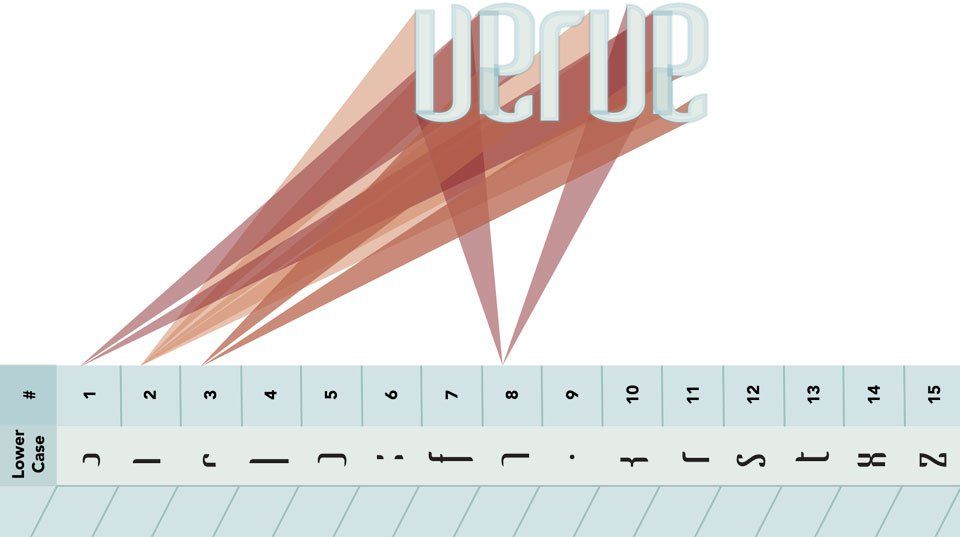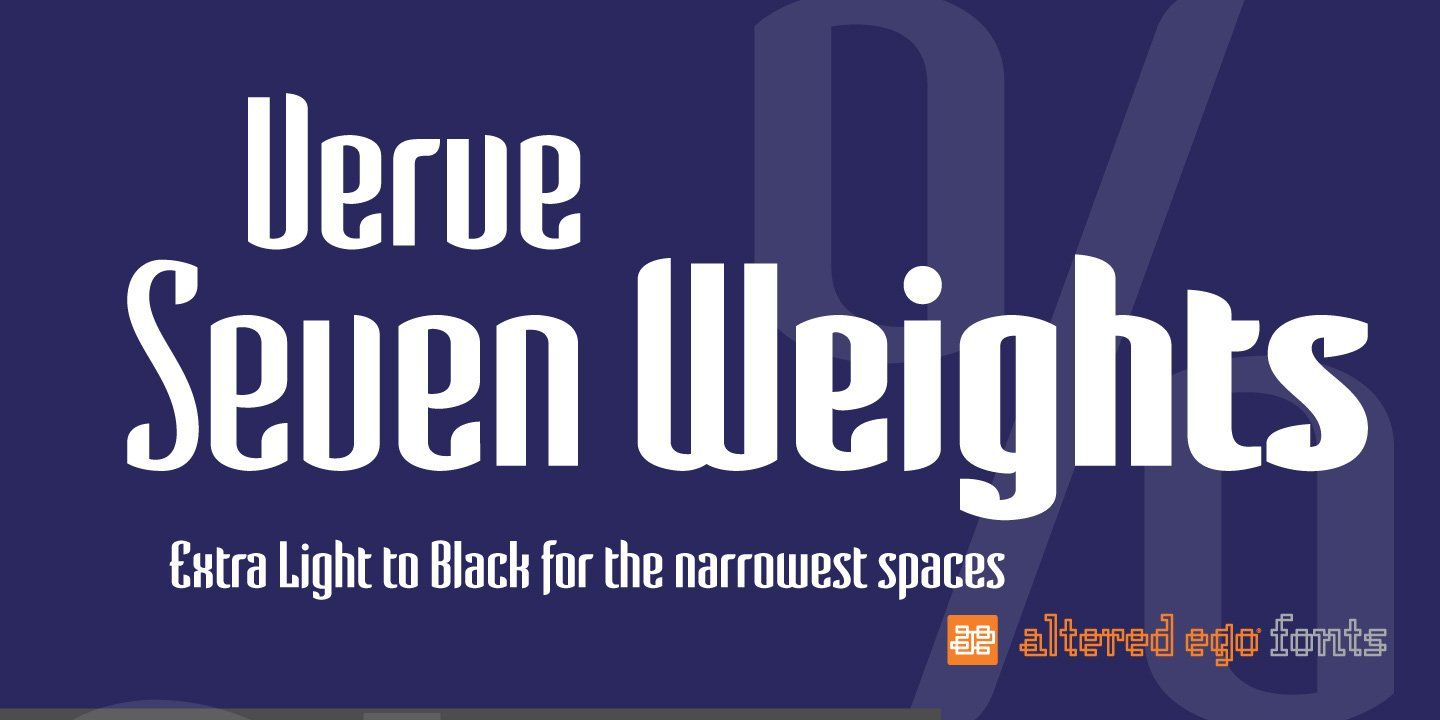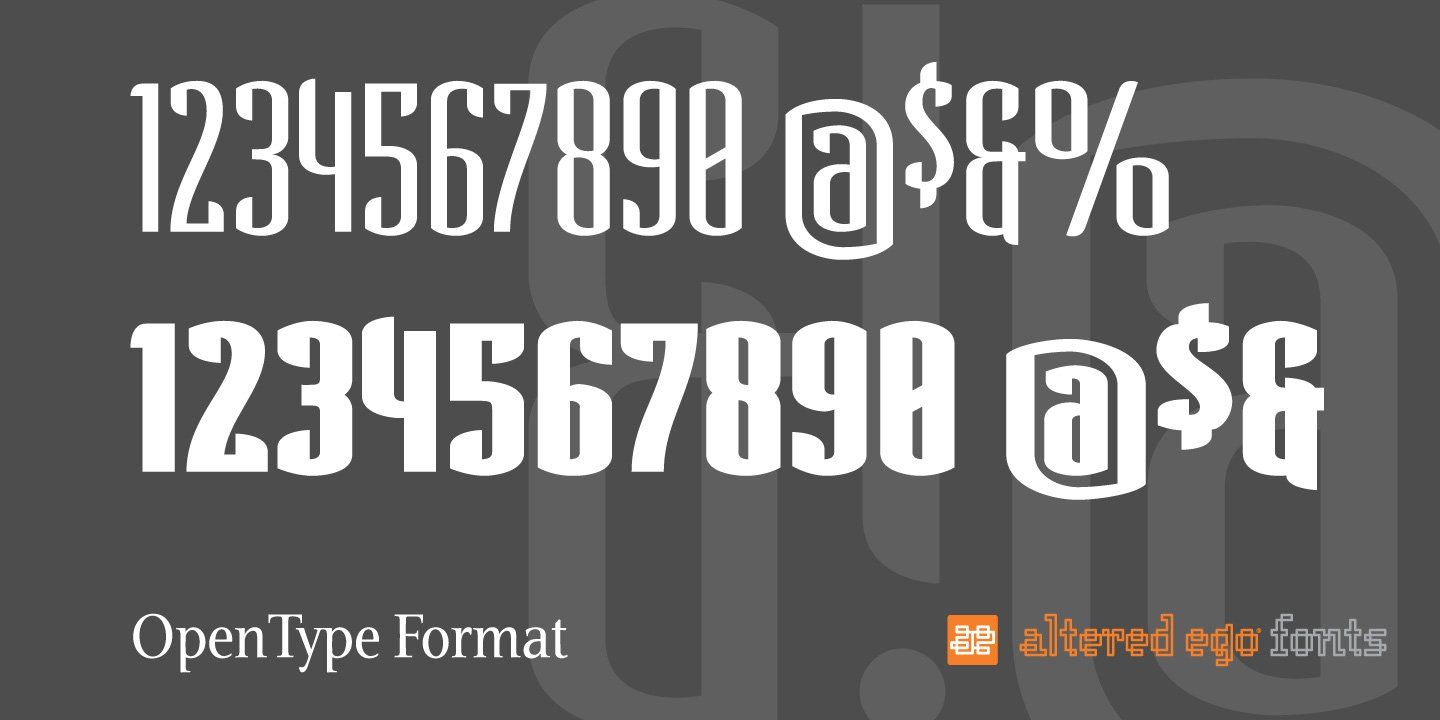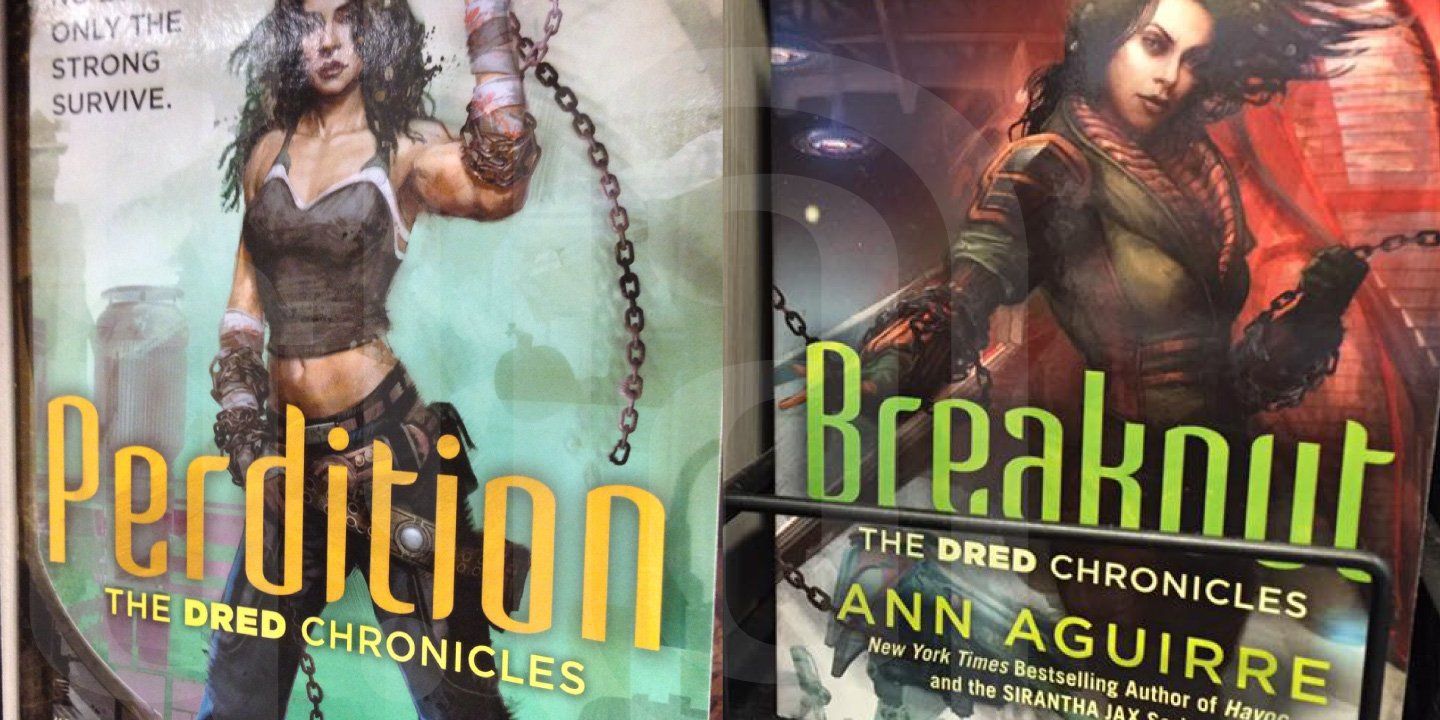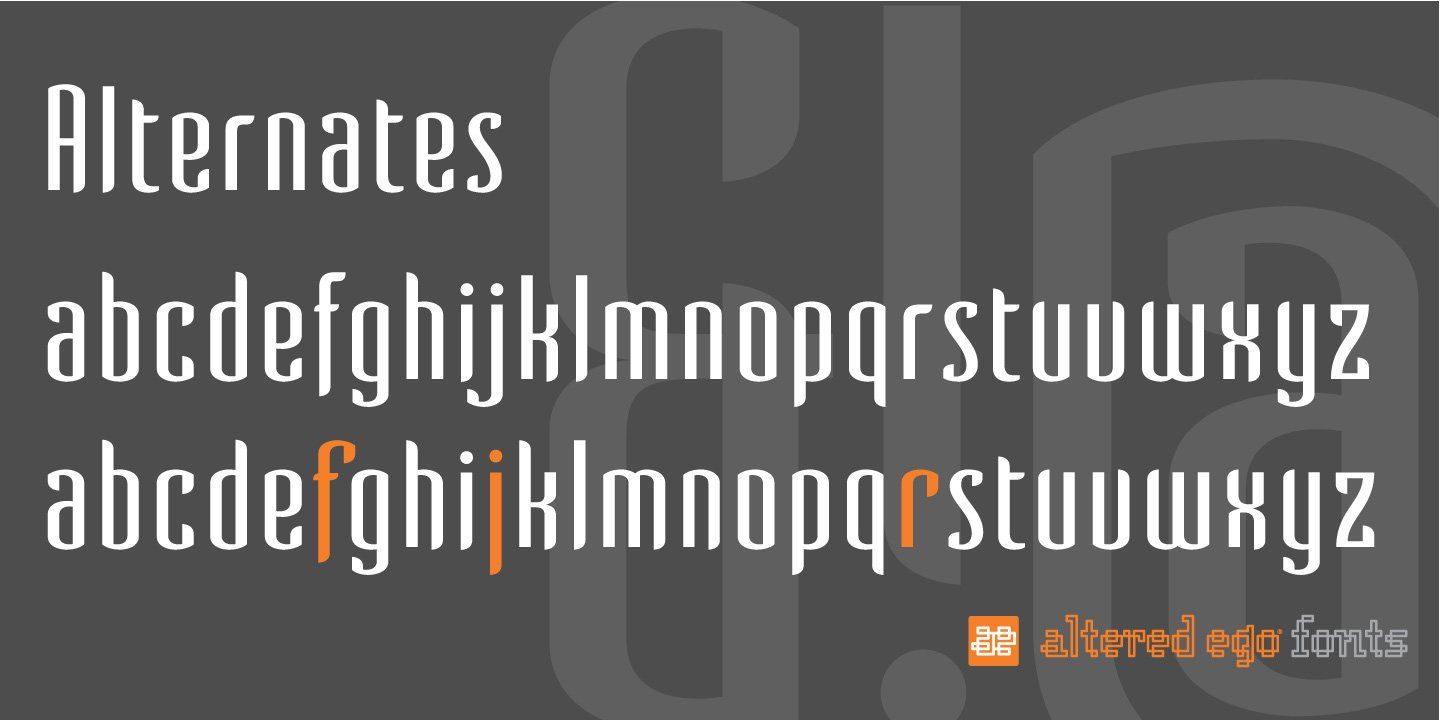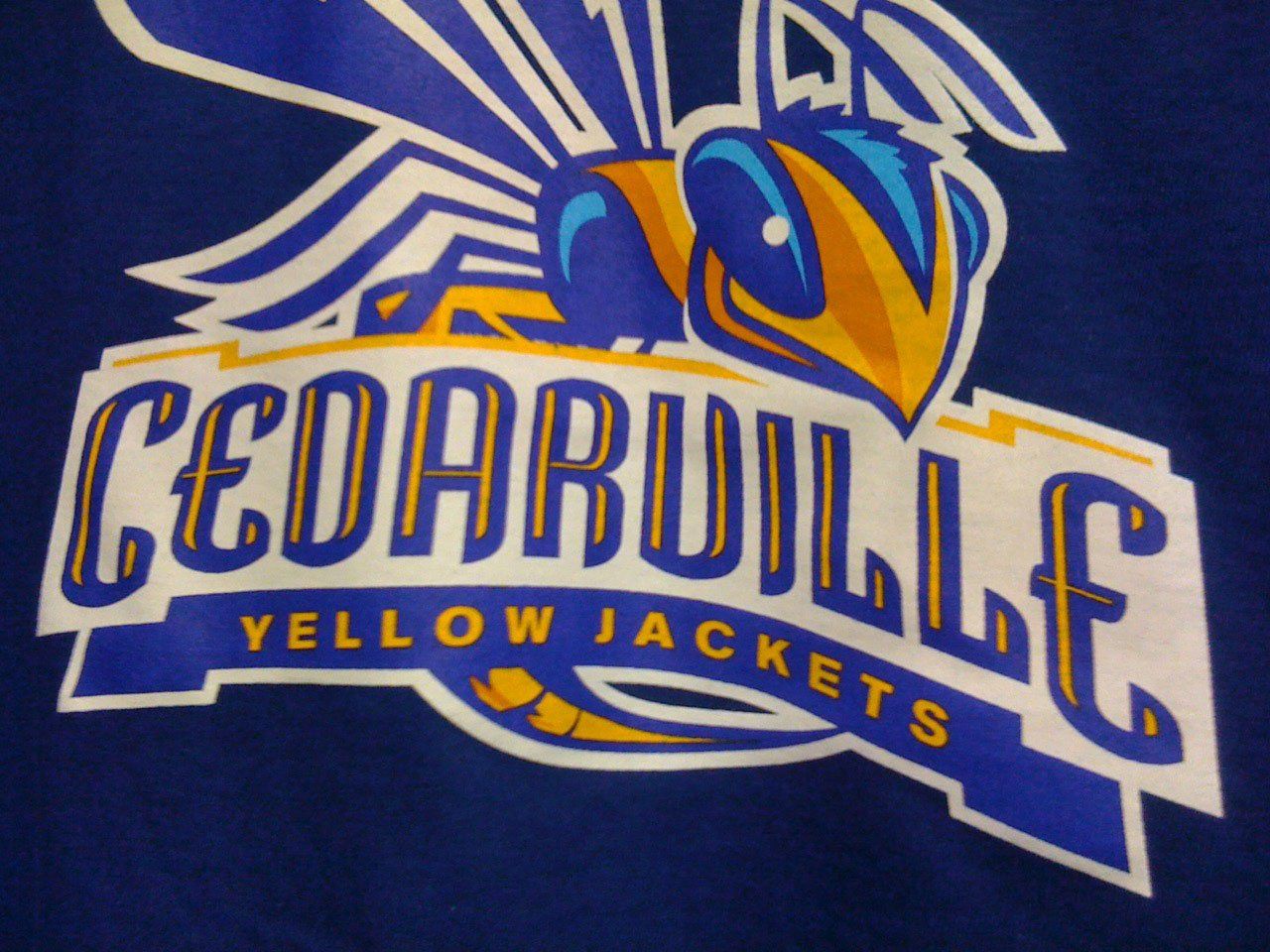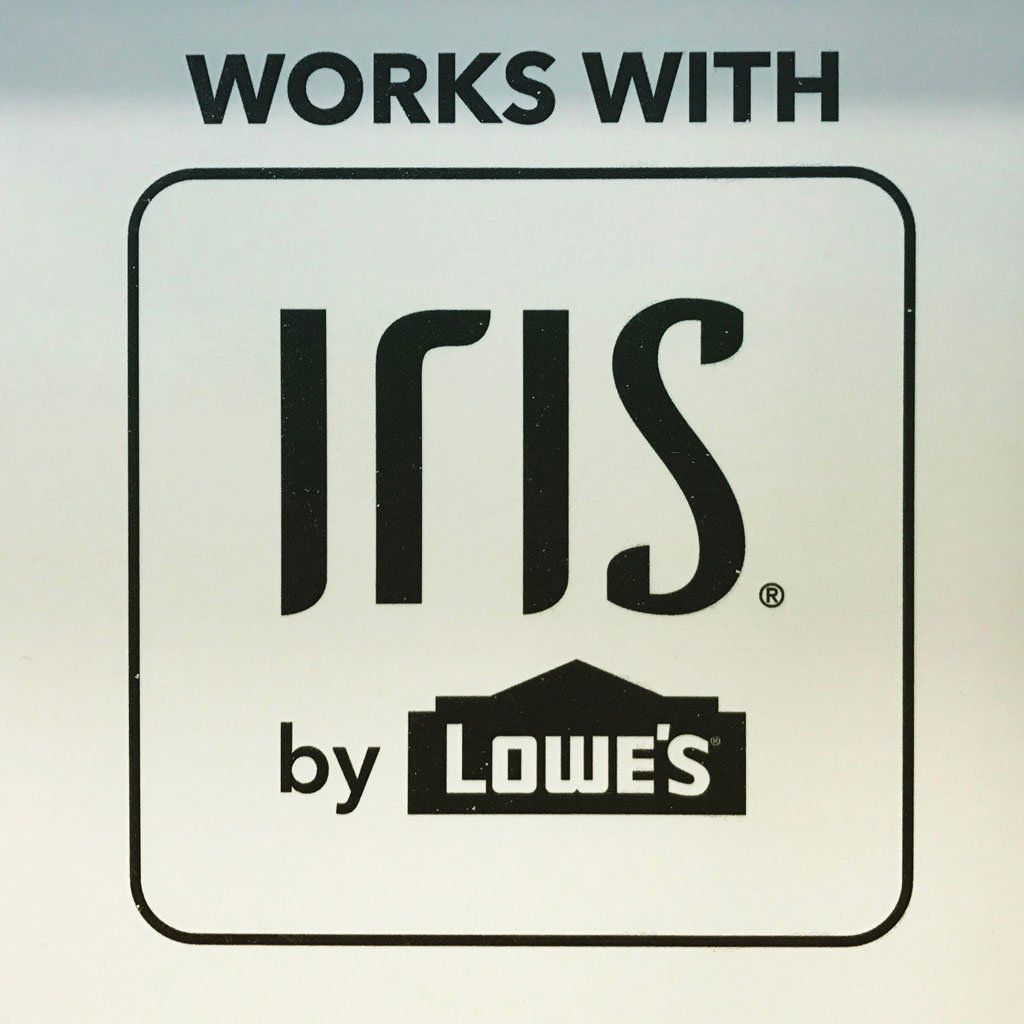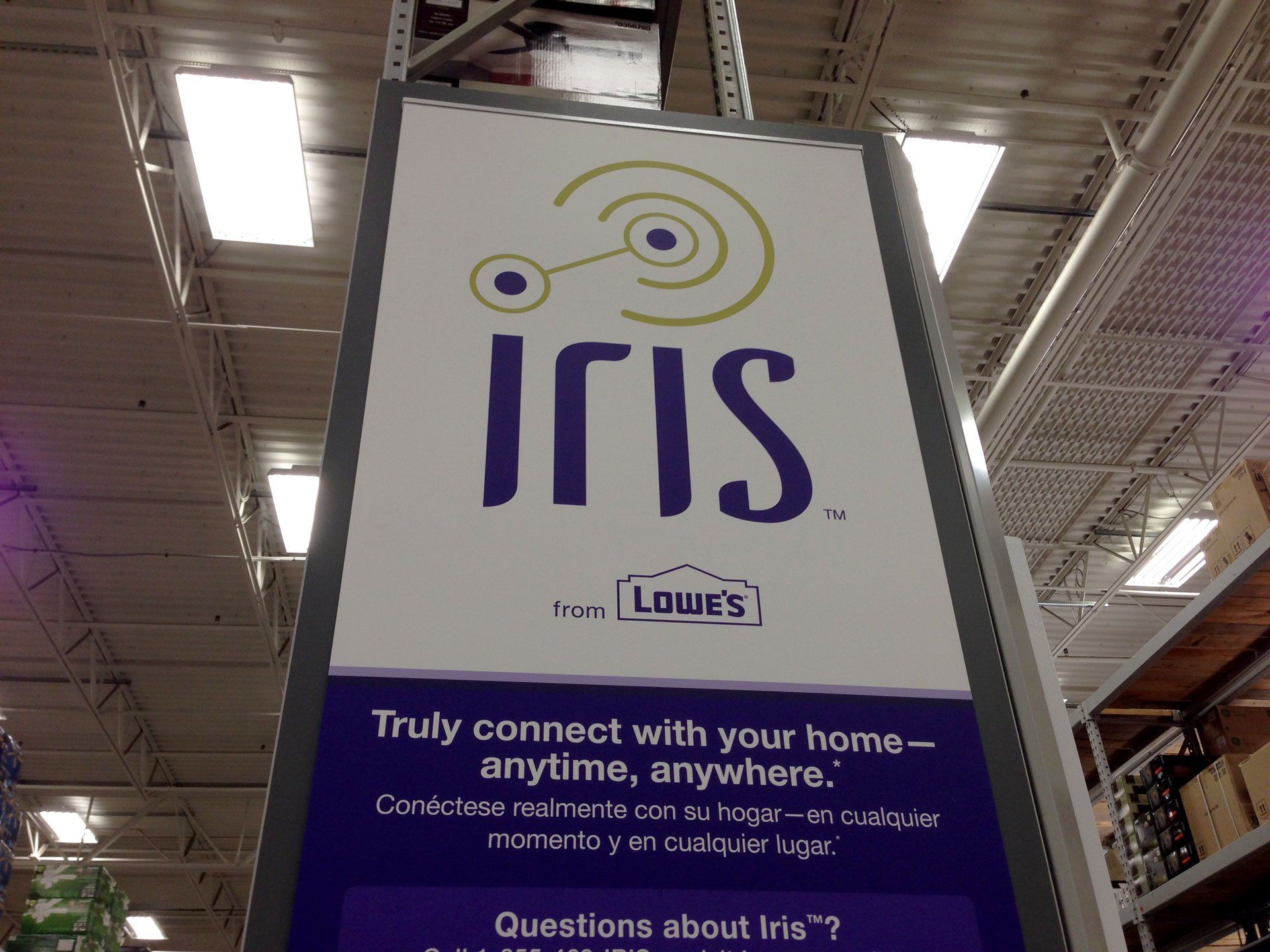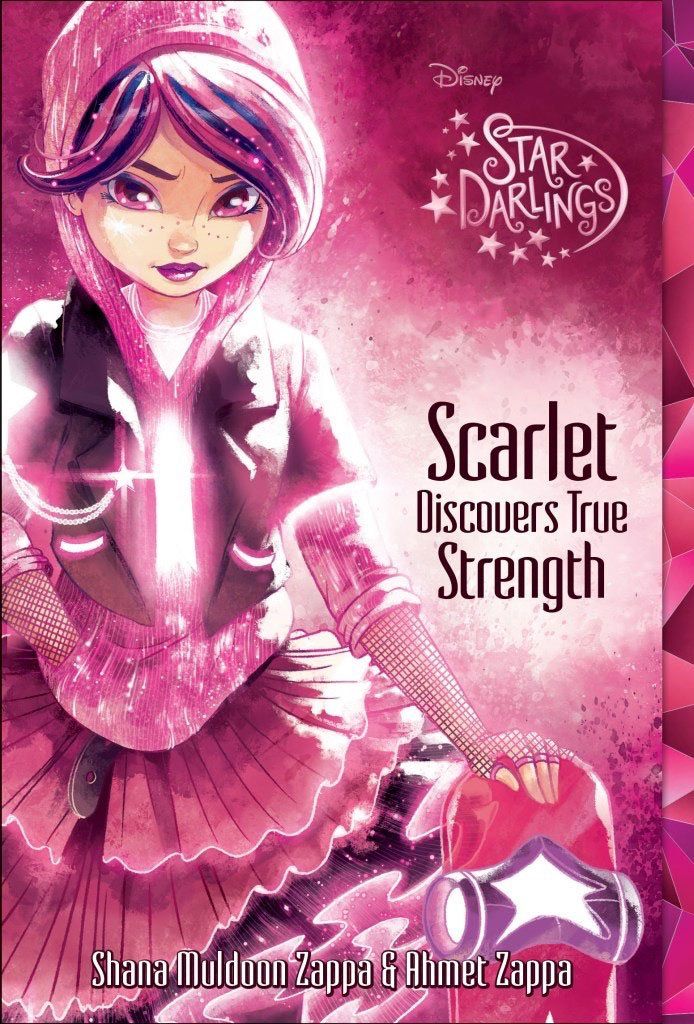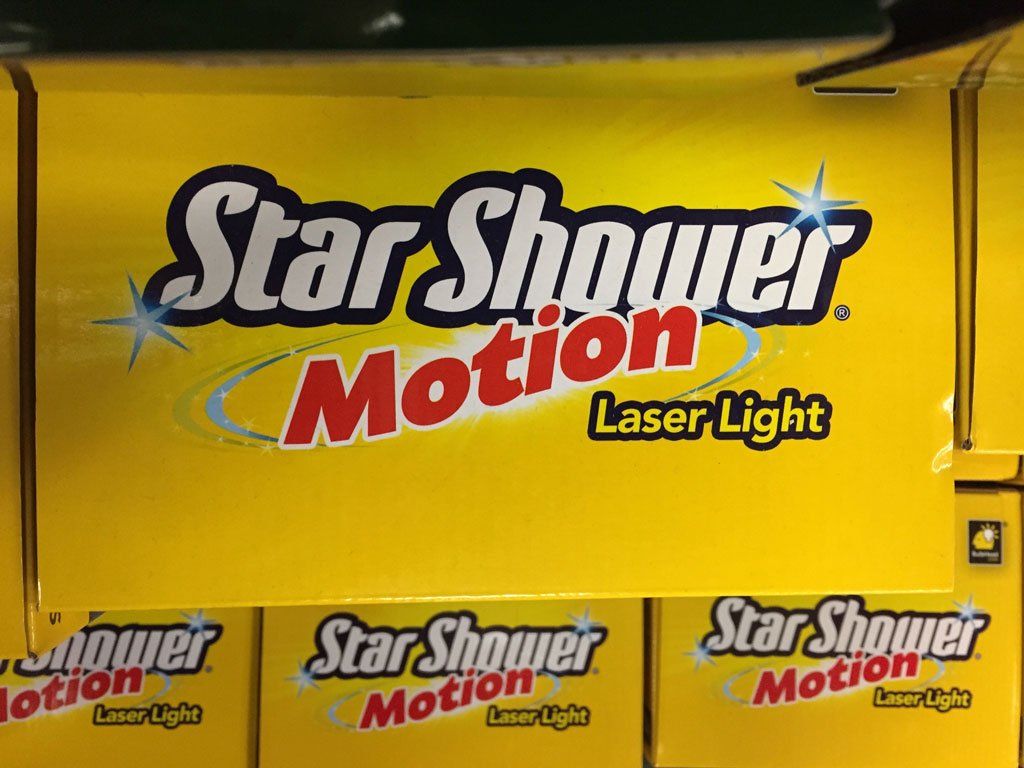
Altered Ego Verve
Condensed typeface for packaging, publications, and brands
Verve® AE is an elegant condensed typeface — “a typeface for the millennium,” — in style and functionality.
Sensuality balanced by uniformity
Verve Æ in Culture and Commerce
Sightings of Verve AE Font Around The World
What Brands Use Verve Æ to Stand Out?
Altered Ego Verve is a top choice for publishers like
Disney, McGraw-Hill Education,
Penguin Books; recording companies like Concord Records, manufacturers like Revlon, and discerning brands in every sector.
Verve AE has been spotted on products from Verona, Italy, to fashion runways in NYC, and at your local big box stores like Walmart.